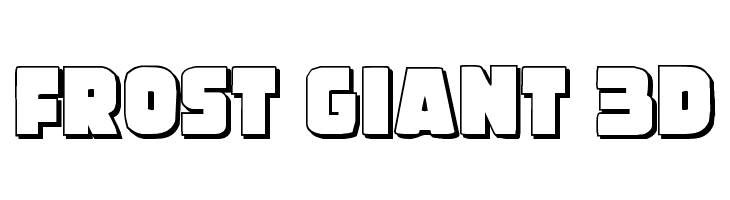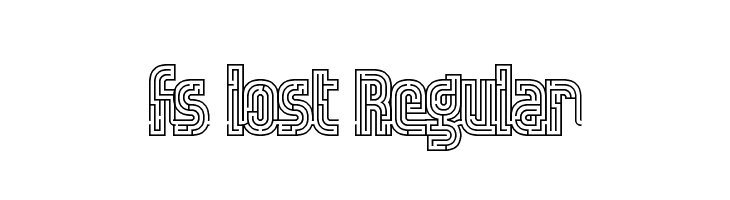
A modern, italicized inline font with a sleek and geometric design.
A bold, slab serif font with strong, well-defined characters.
A playful, hand-drawn font with a whimsical and energetic style.
A bold, handwritten-style font with a dynamic and energetic appearance.
A bold, 3D block-style font with strong outlines and shadow effects.
A bold, distressed font with a rugged, vintage appearance.
A calligraphic font with elegant, flowing strokes and ornate details.
A bold, modern sans-serif font with geometric lines and strong readability.
A bold, modern typeface with clean lines and strong presence.